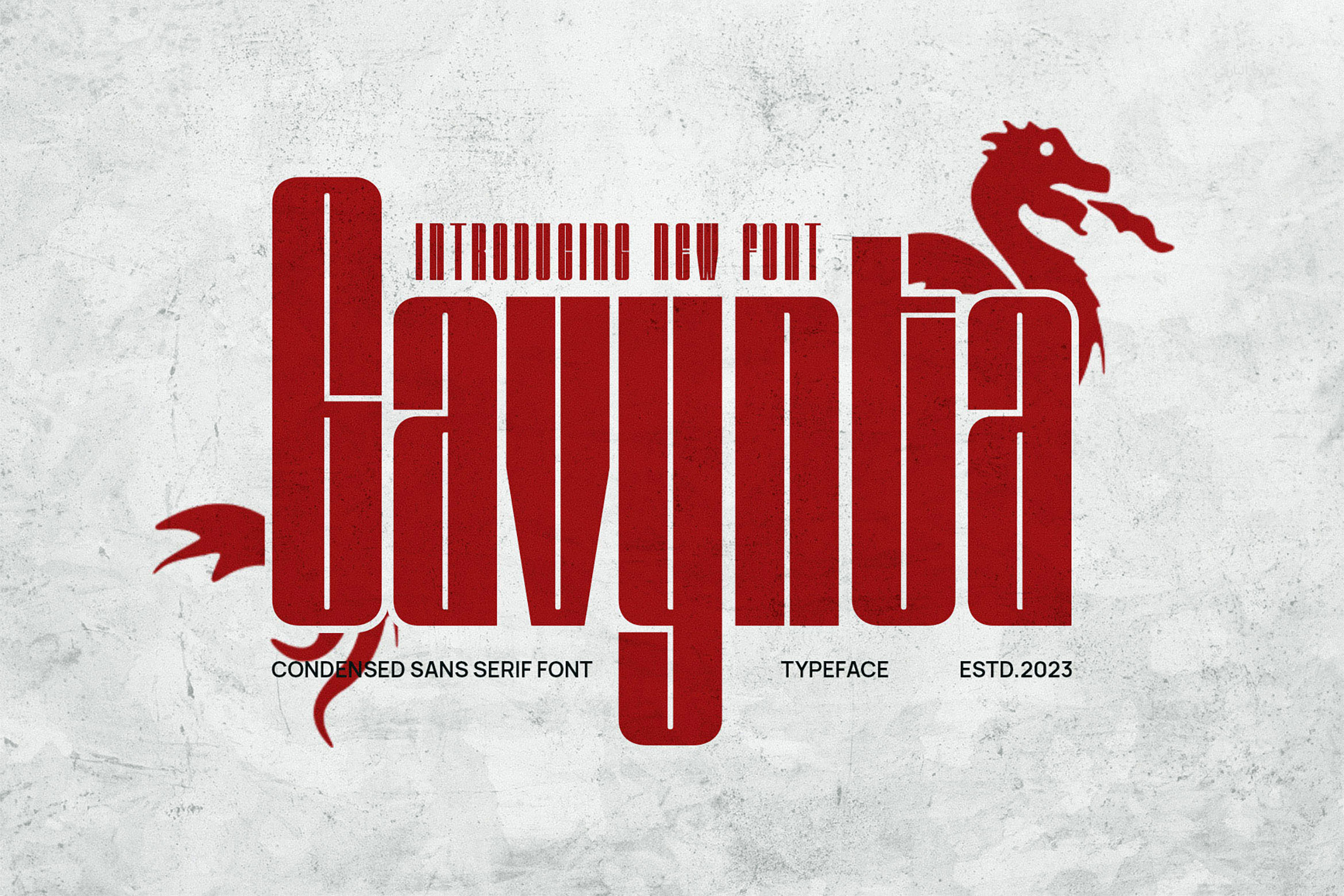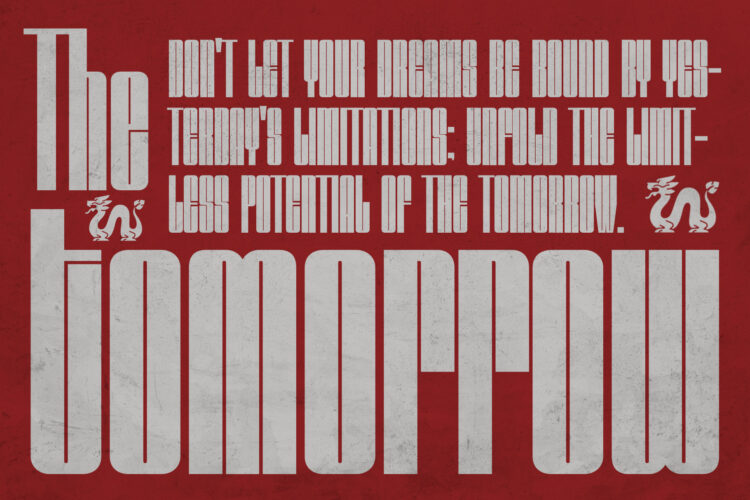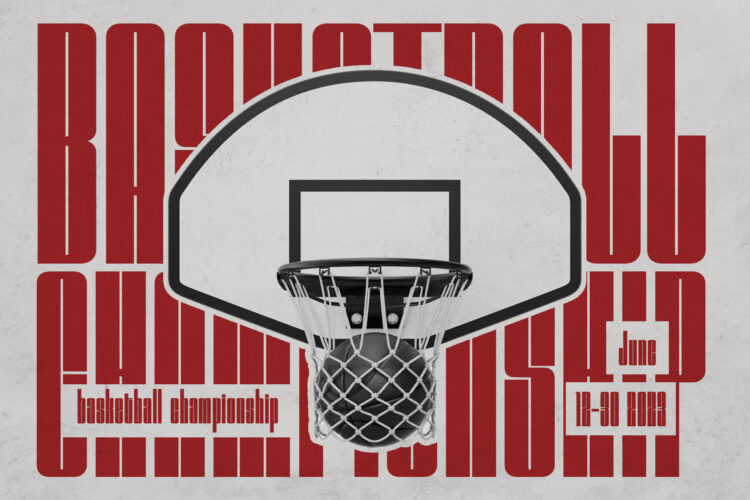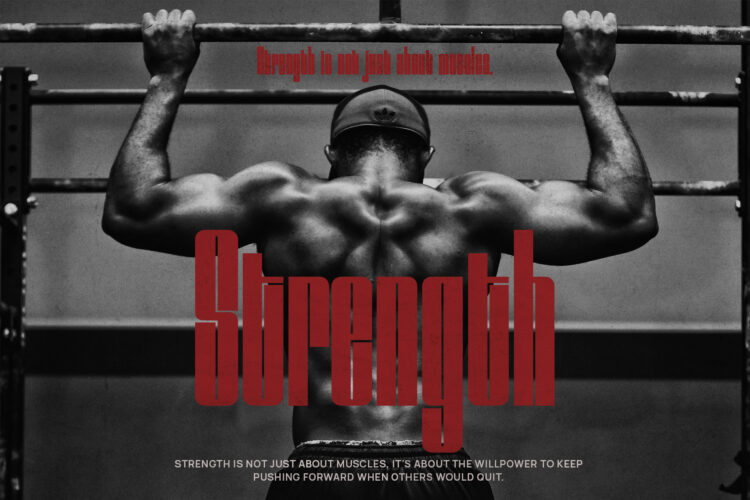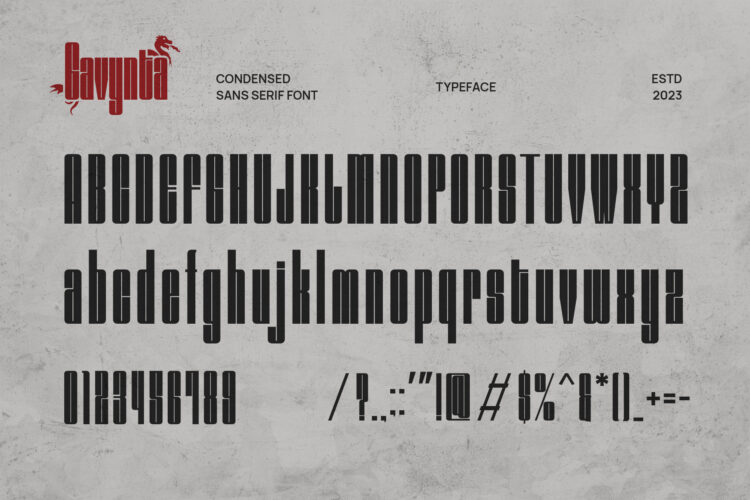
Introducing our new Gavynta, modern sans serif font with elegant style this is perfect for branding, logos, invitation, magazines, product packaging and more.
Gavynta – Modern Condensed Sans Serif